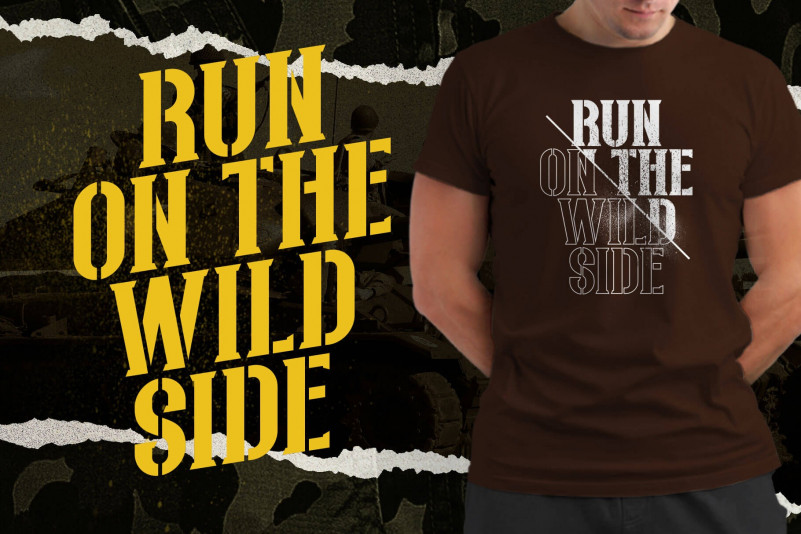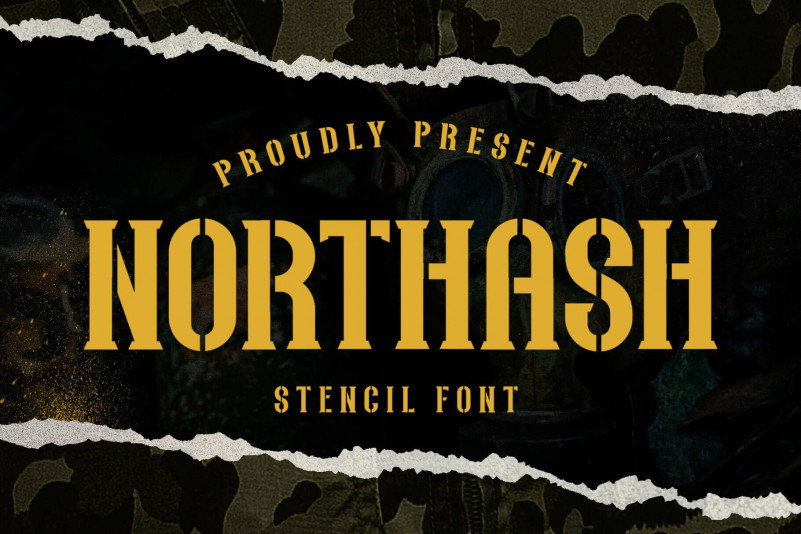
Northash Display Font
It’s a unique, vintage and elegant decorative font inspired by the old-school signage and military design. This font has a bit condensed letterform that gives a strong look and dignified. Perfect for many themes such as sports, military, urban, wildlife, vintage, and more!